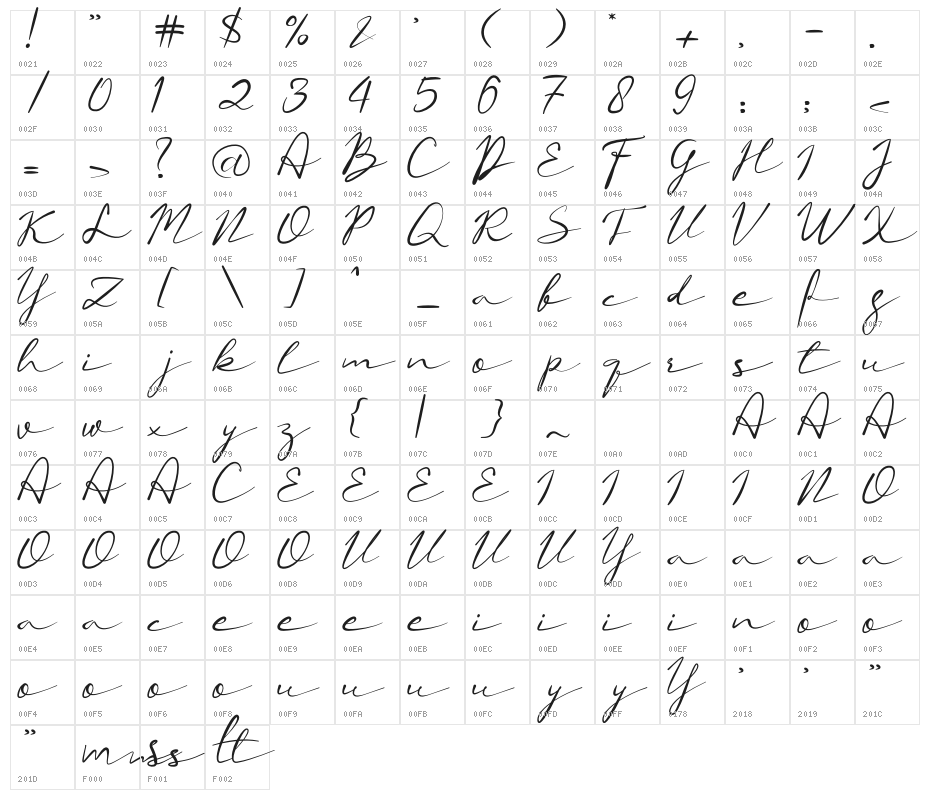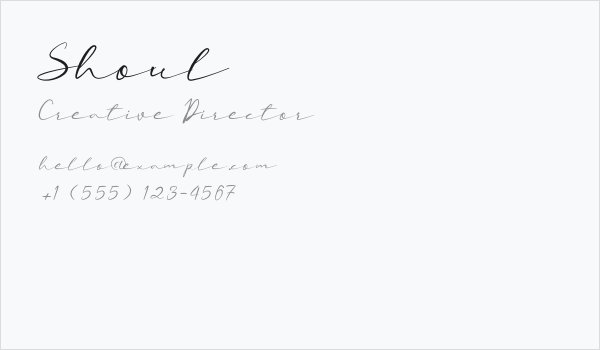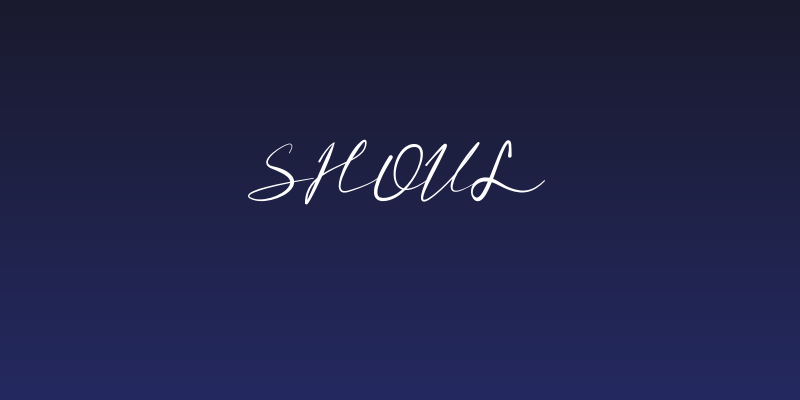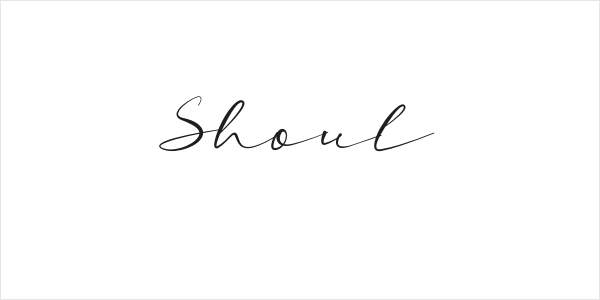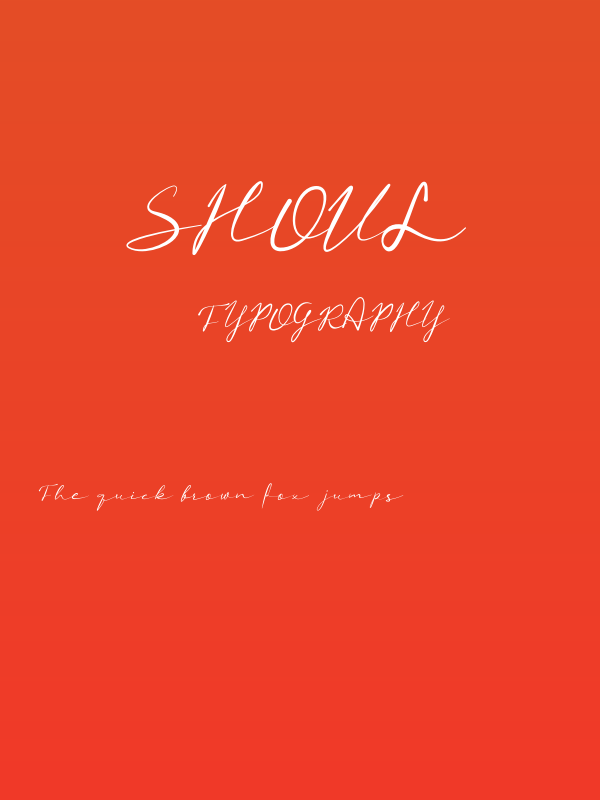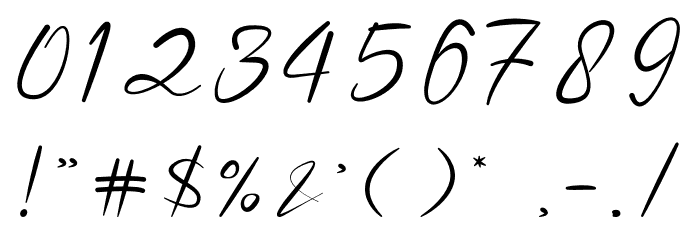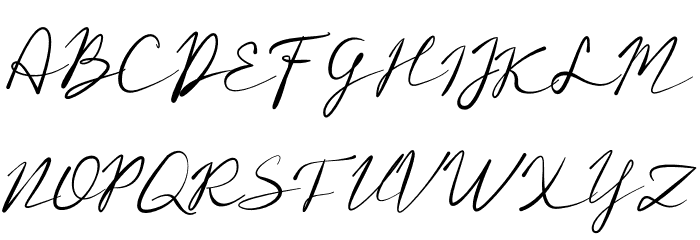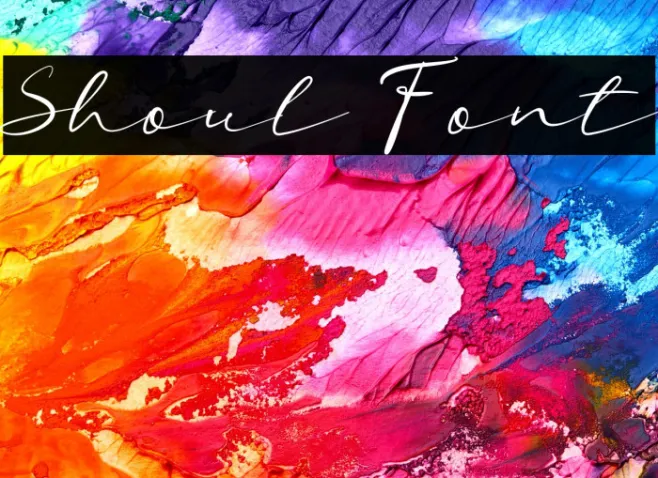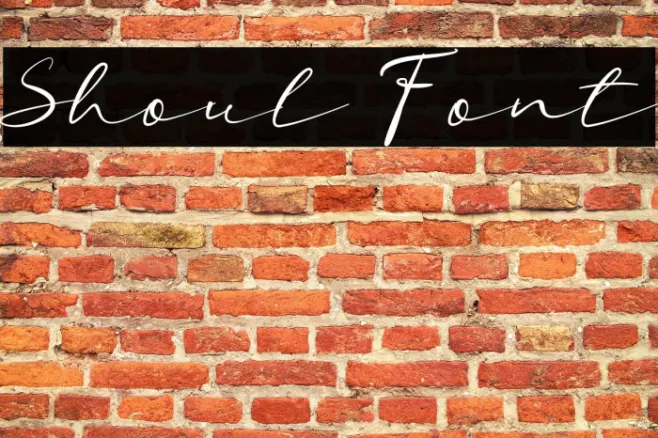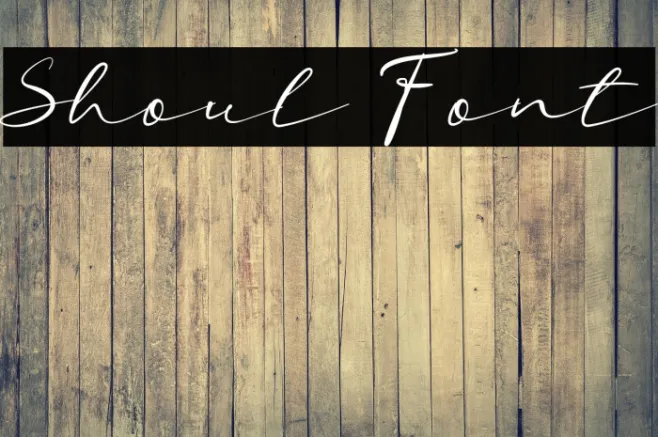
Shoul Font
Elegant and flowing script font with a handwritten style, featuring smooth curves and a natural, cursive appearance.
| Proposed Projects | Invitations, greeting cards, personal branding. |